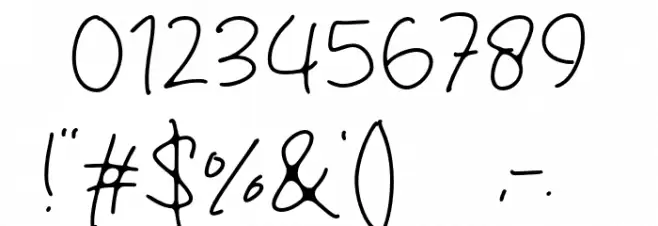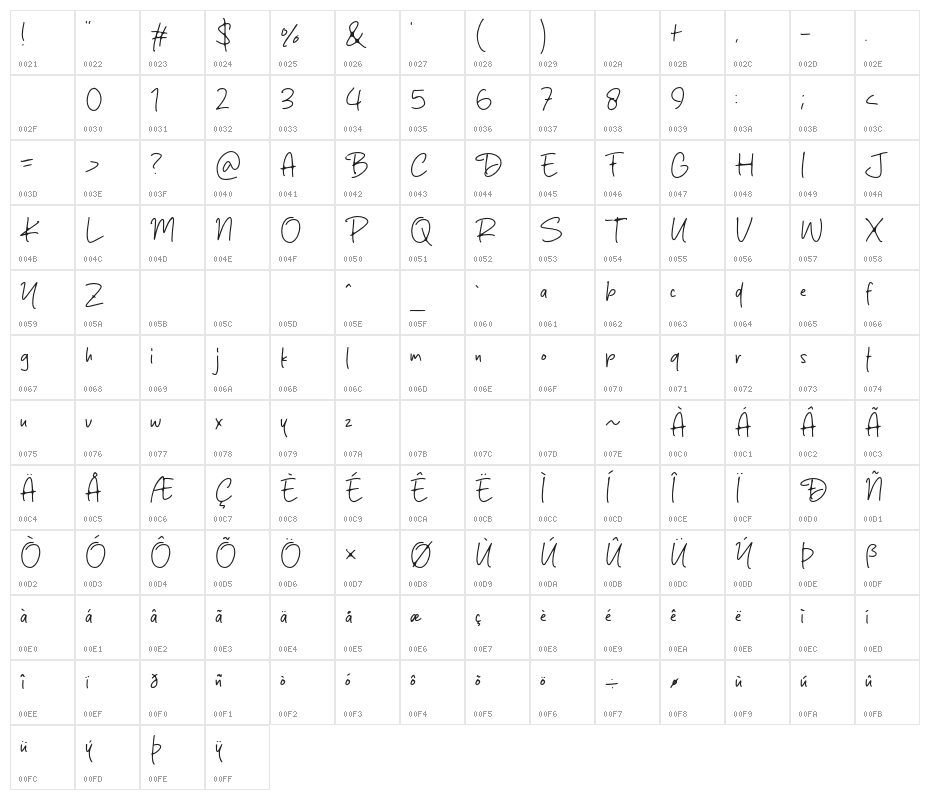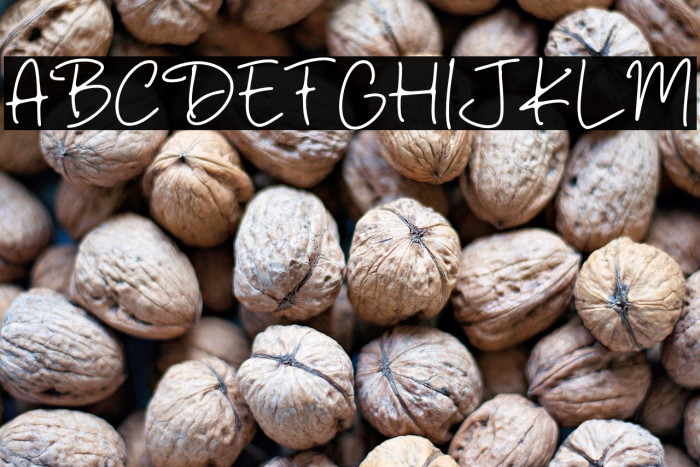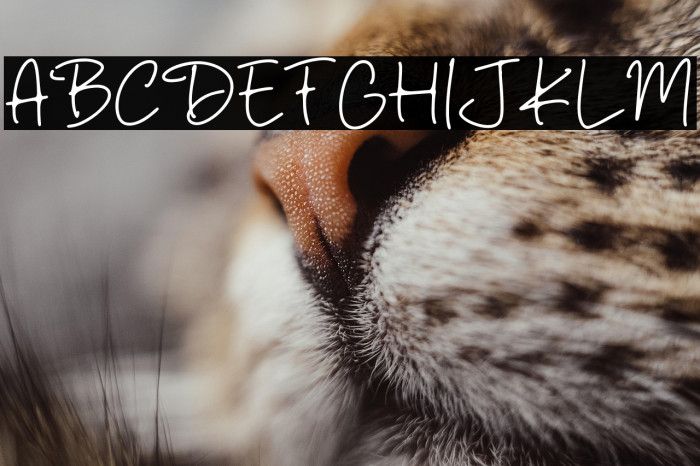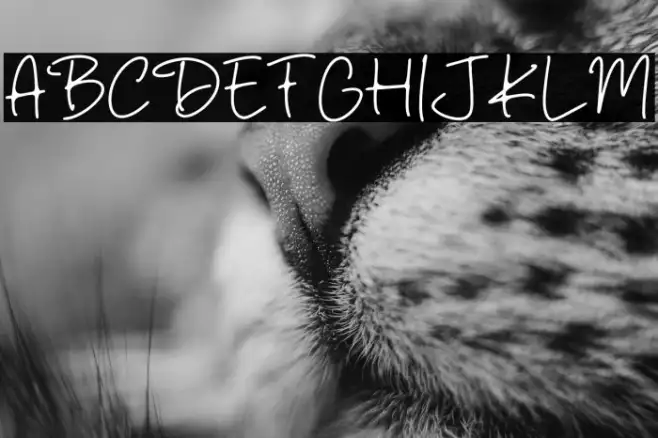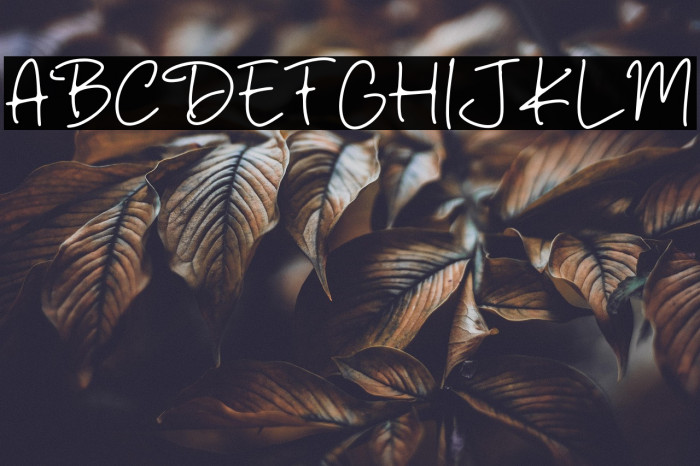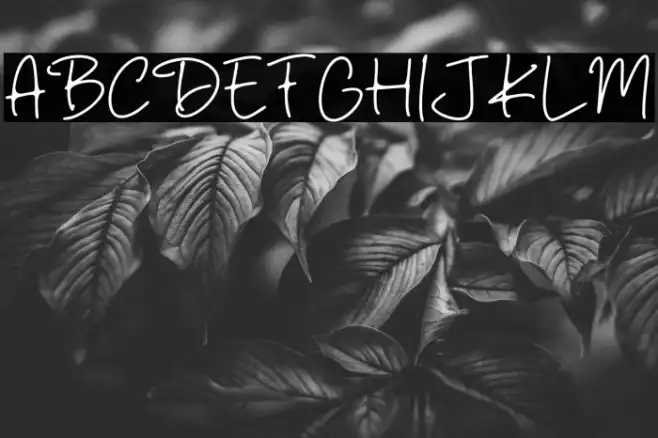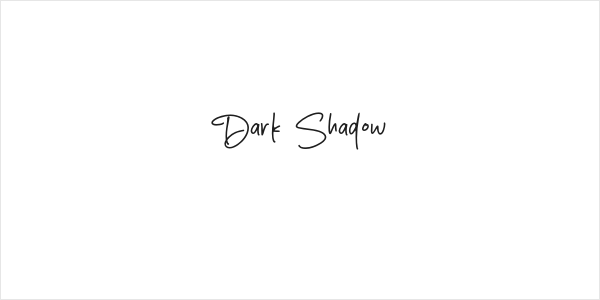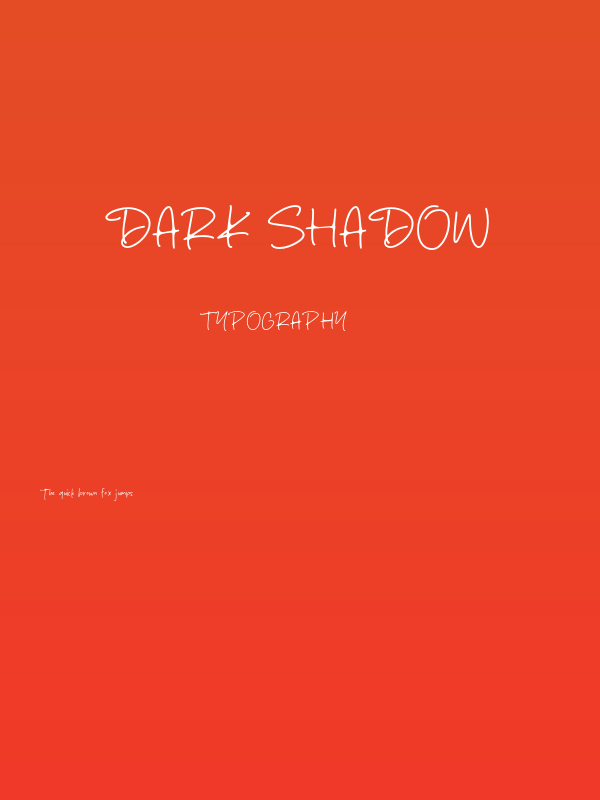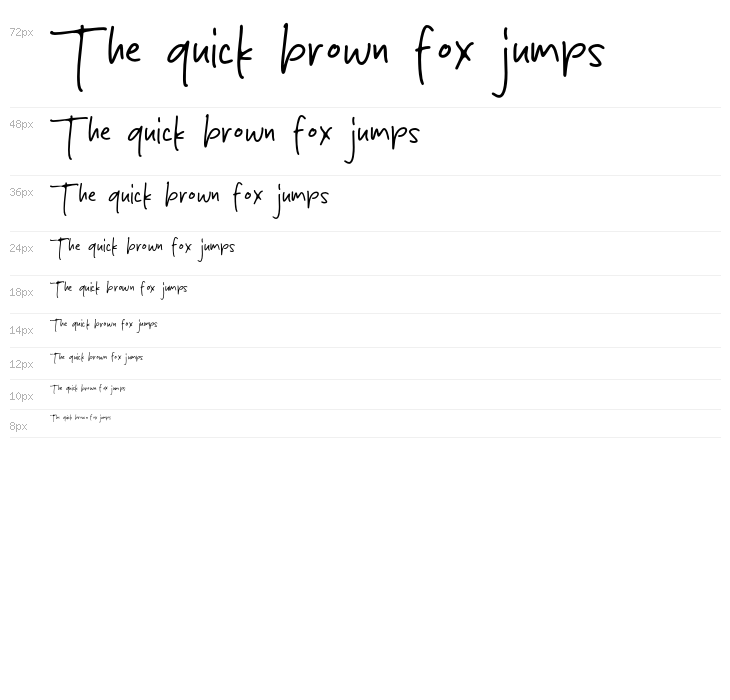
Dark Shadow Font
Dark Shadow Description
This font exhibits a casual, handwritten style with a playful and informal appearance. The letters are slightly slanted, giving a dynamic and energetic feel. The strokes are smooth and fluid, with a consistent flow that mimics natural handwriting. The uppercase and lowercase letters maintain a cohesive style, while the numerals and special characters complement the overall aesthetic. This font is versatile, suitable for projects that require a personal touch or a relaxed vibe.
| Use Case | Headlines, Logos, Informal text |
| Proposed Projects | Ideal for greeting cards, invitations, personal branding, and social media graphics. |